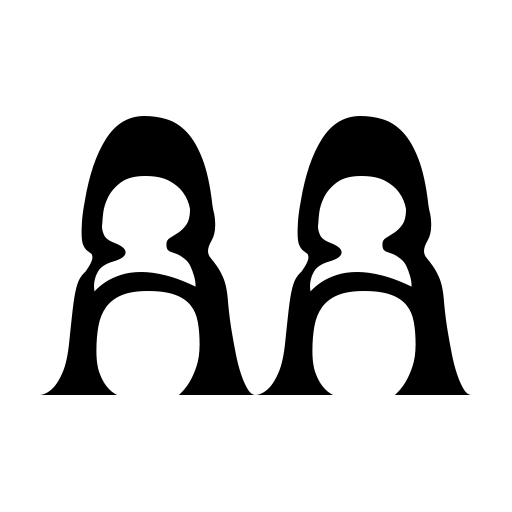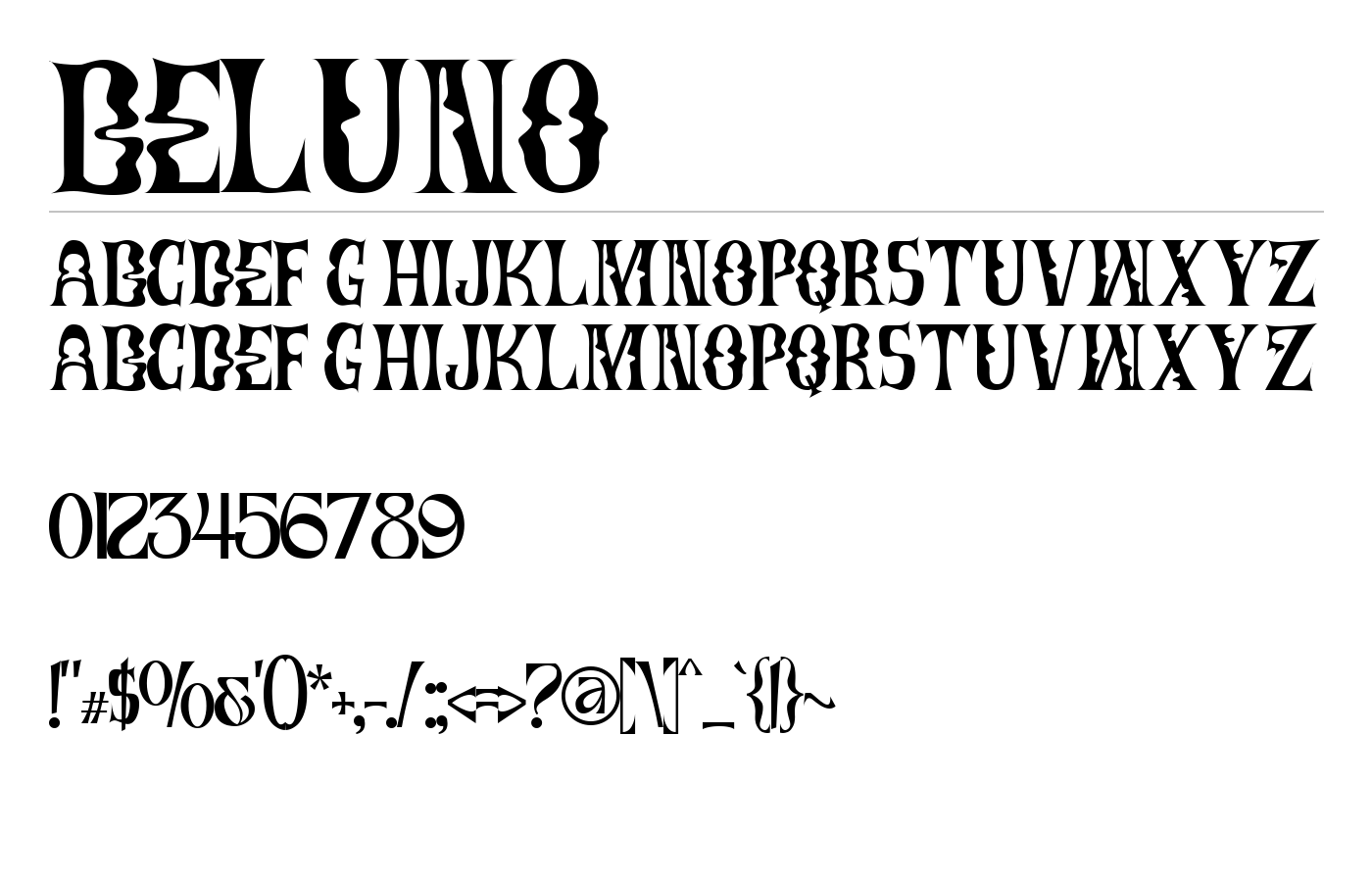
Beluno is a bold, condensed serif font with a distinctive vintage flair, featuring high contrast strokes and intricate, almost ornamental cut-out details that create a dramatic visual impact. Its unique letterforms convey a sense of elegance and mystery, making it an excellent choice for logos, posters, and branding that seek to stand out with a stylish yet edgy character. This font works best in large display settings where its artistic design can be fully appreciated.
Beluno Font
About Beluno Font